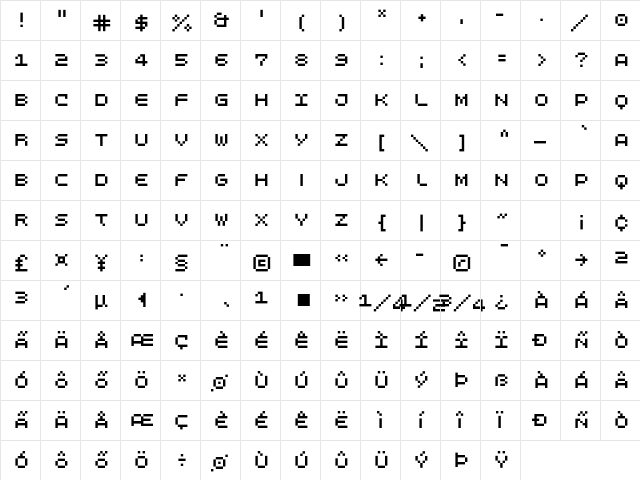
LomoWebPixel LT Std 5 Regular
Design Context for LomoWebPixel LT Std 5 Typeface
LomoWebPixel LT Std 5 is rooted in pixel-grid construction, making it a natural fit for game UI, retro computing aesthetics, and digital nostalgia projects.
Well-suited to indie game interfaces, retro computing aesthetics, and pixel art-adjacent design work.
Pro Tip: Use LomoWebPixel LT Std 5 at sizes that align with its pixel grid for the sharpest rendering — scaling to non-integer multiples can introduce unwanted blur.